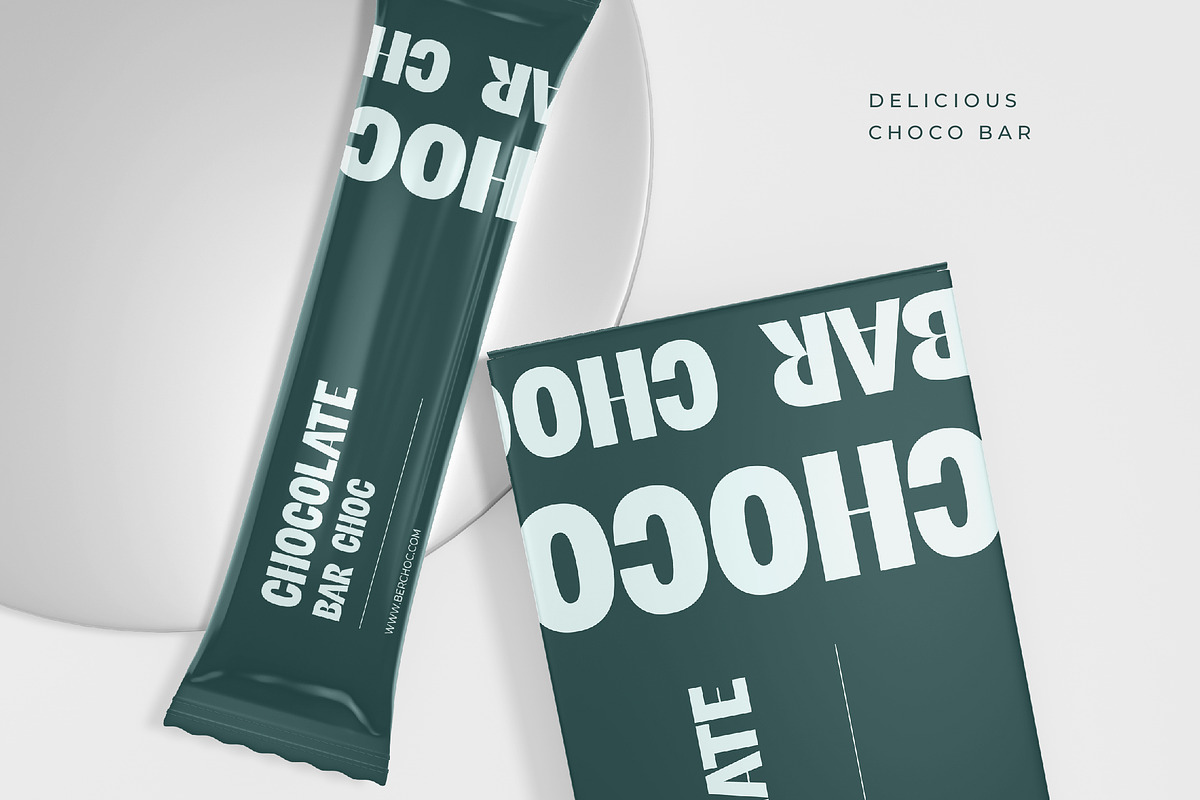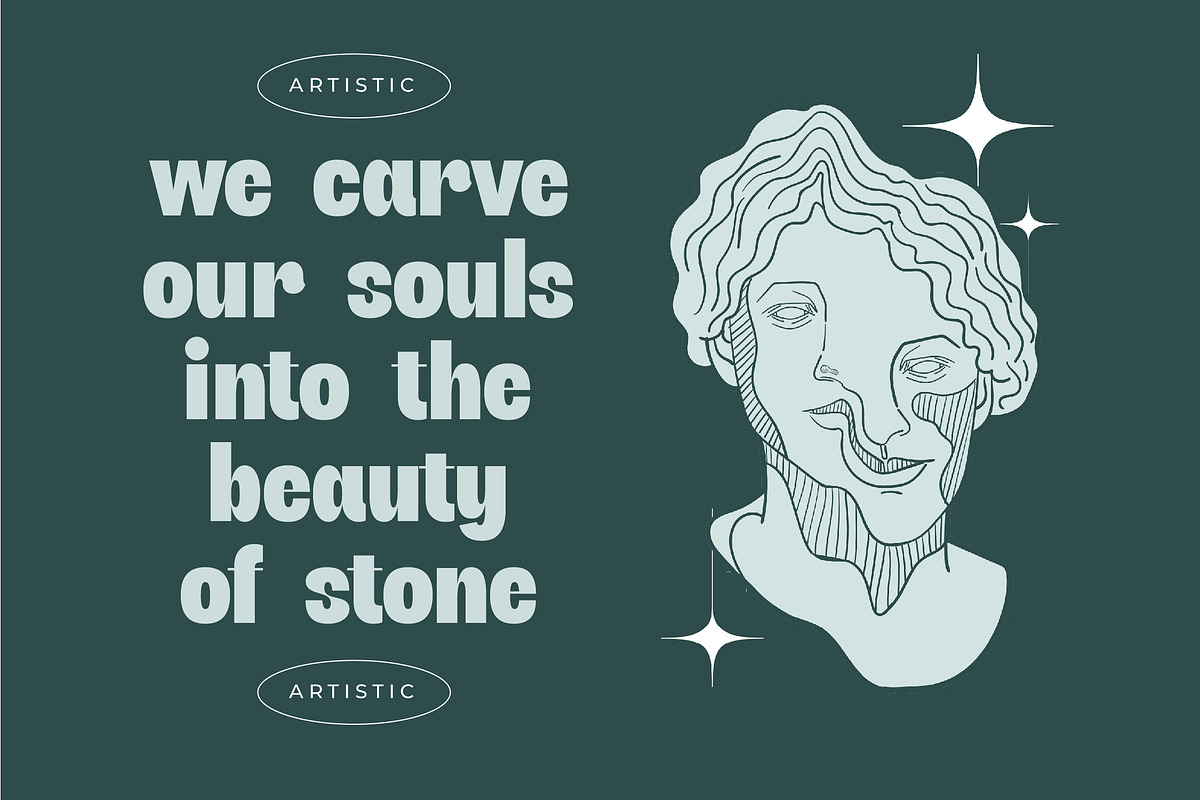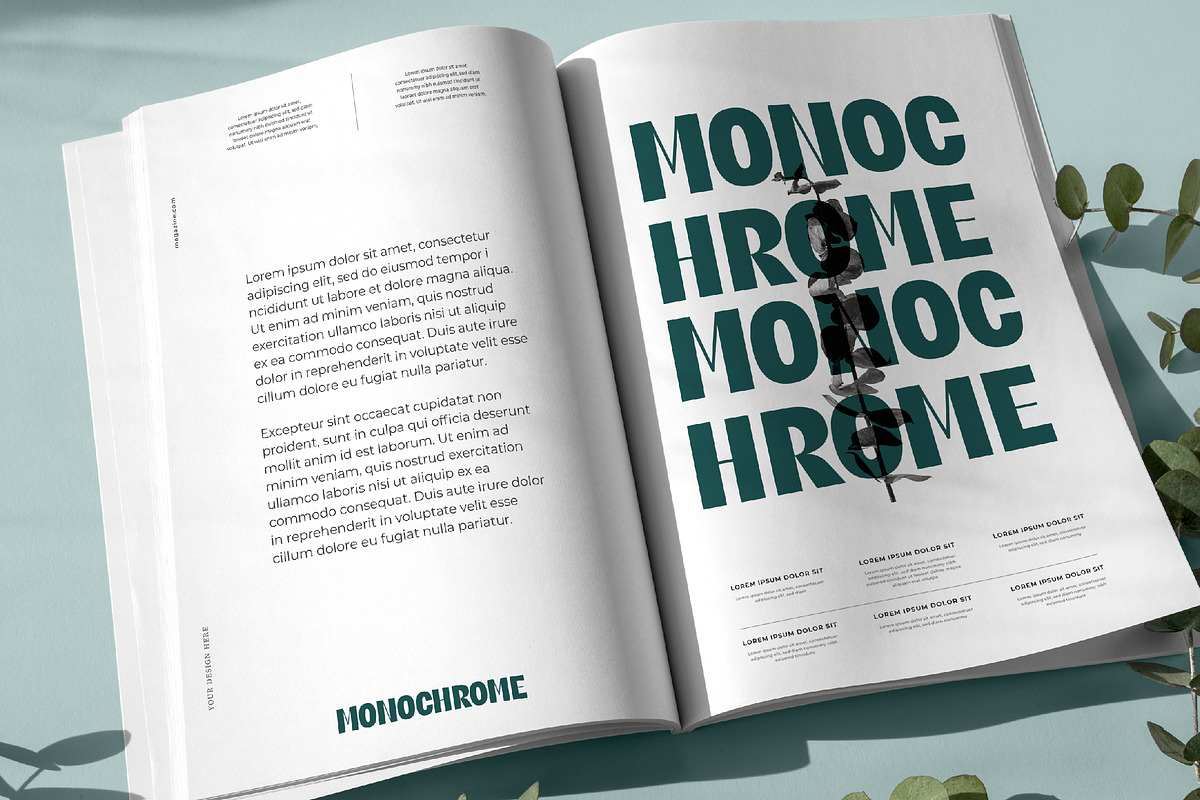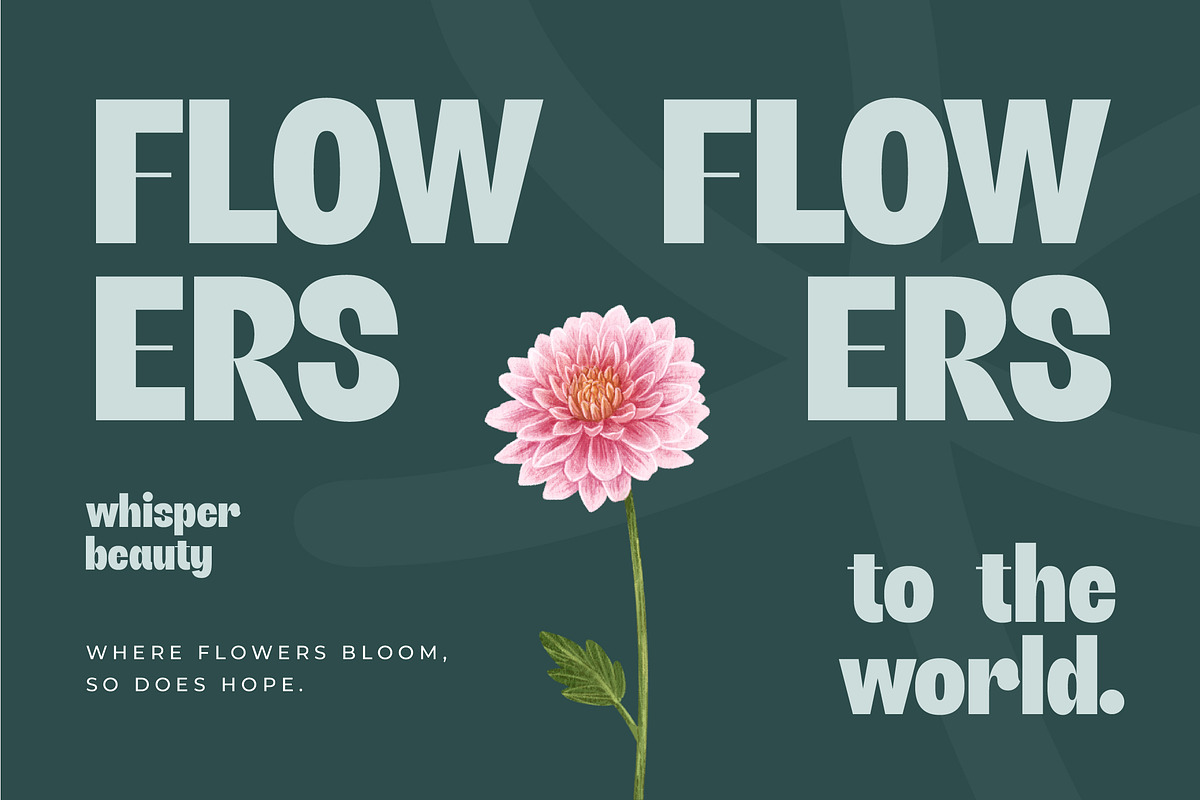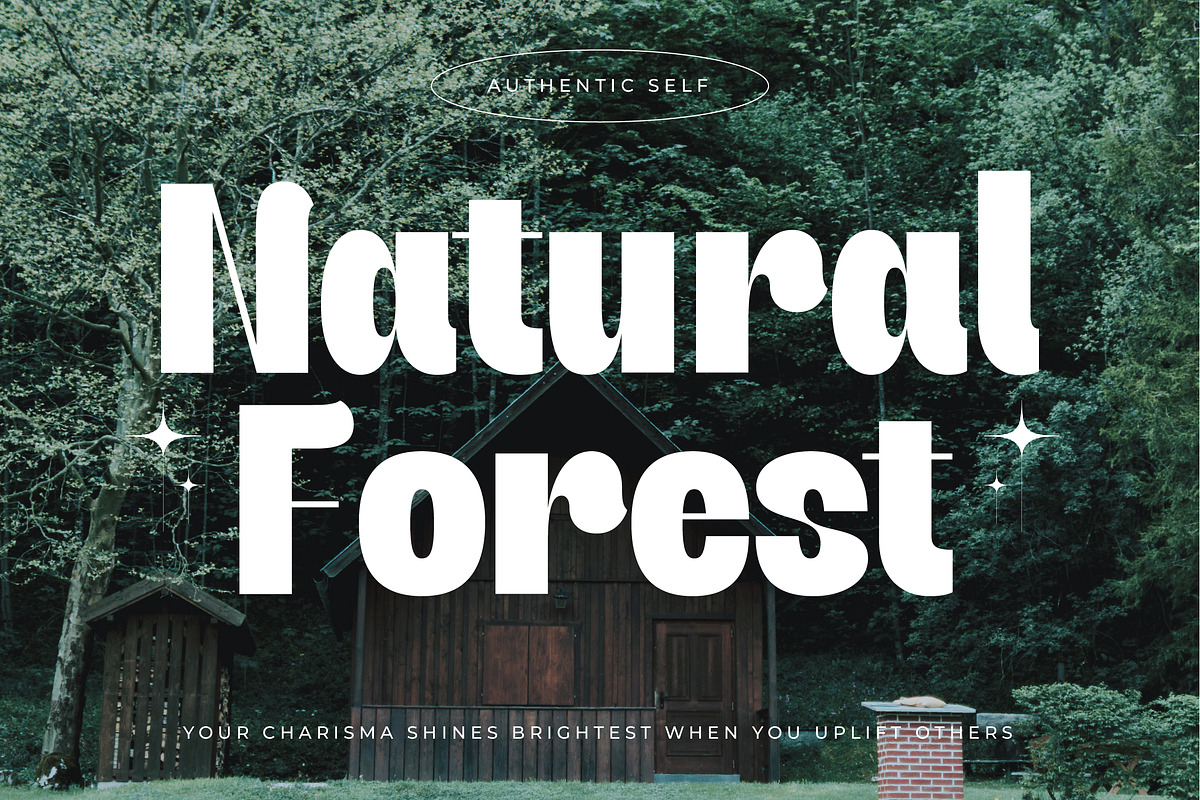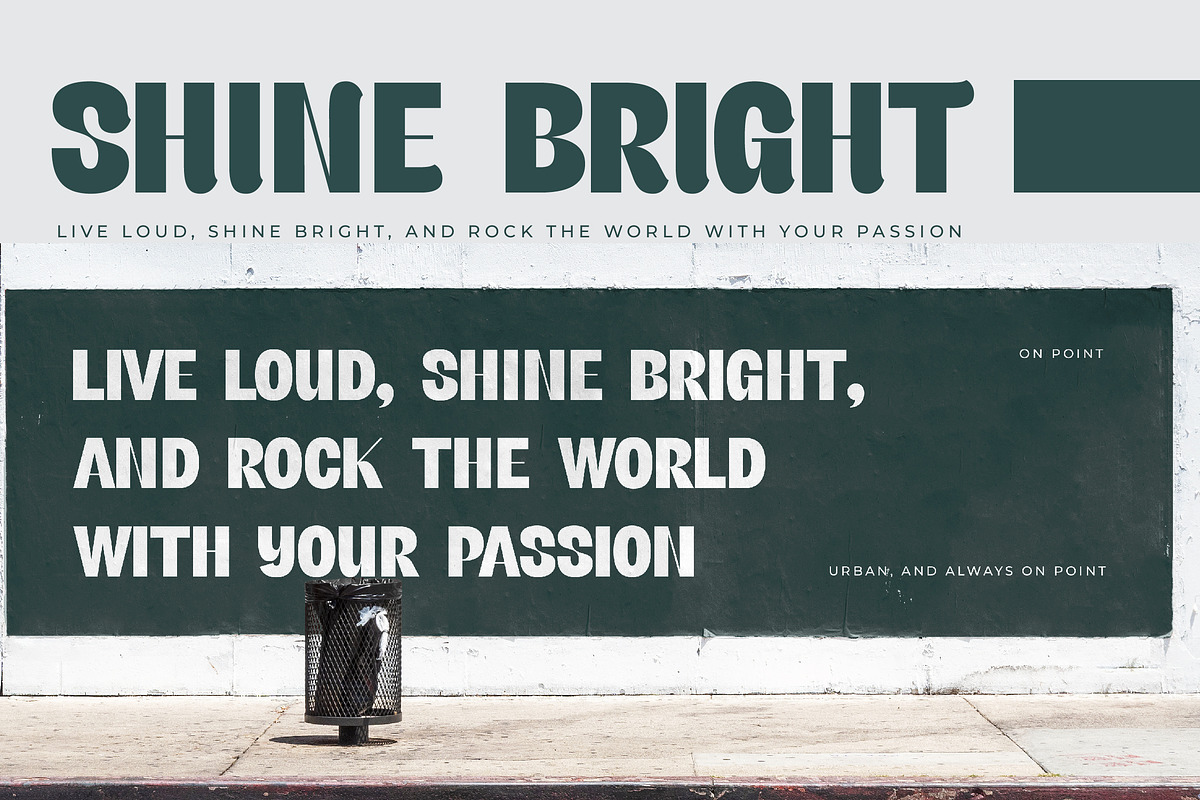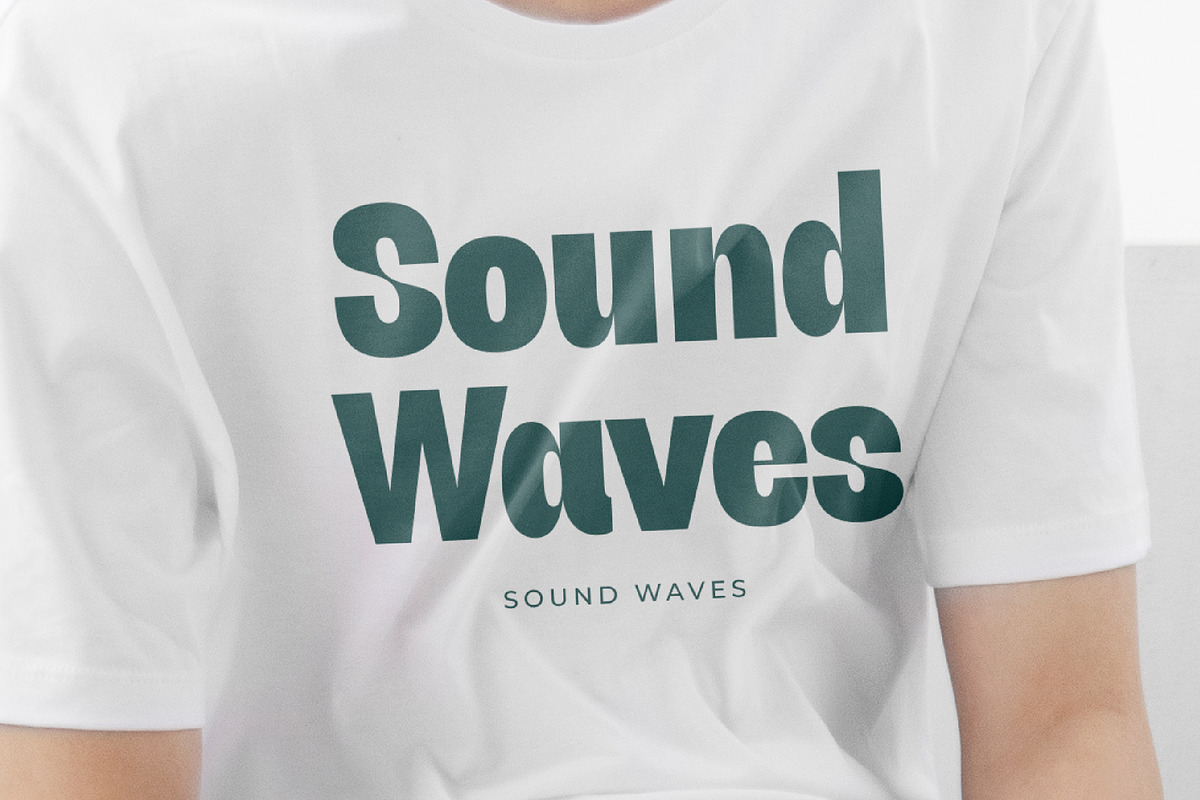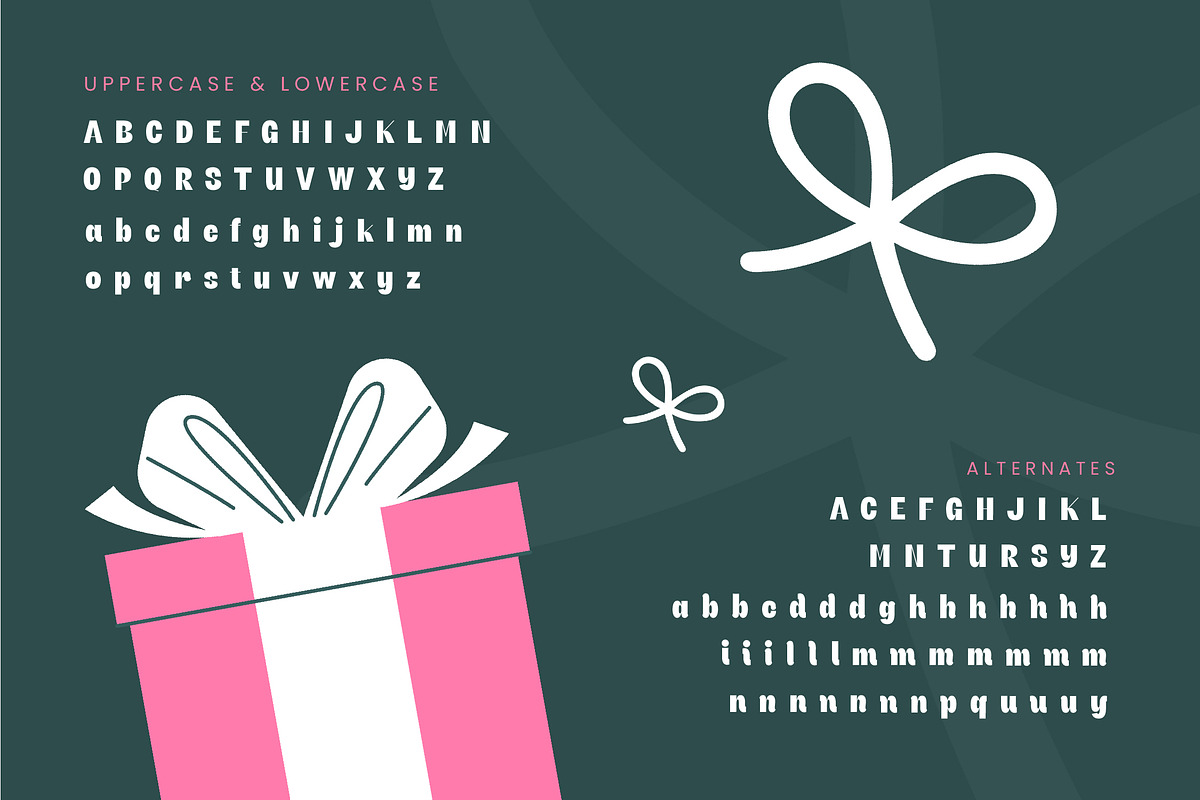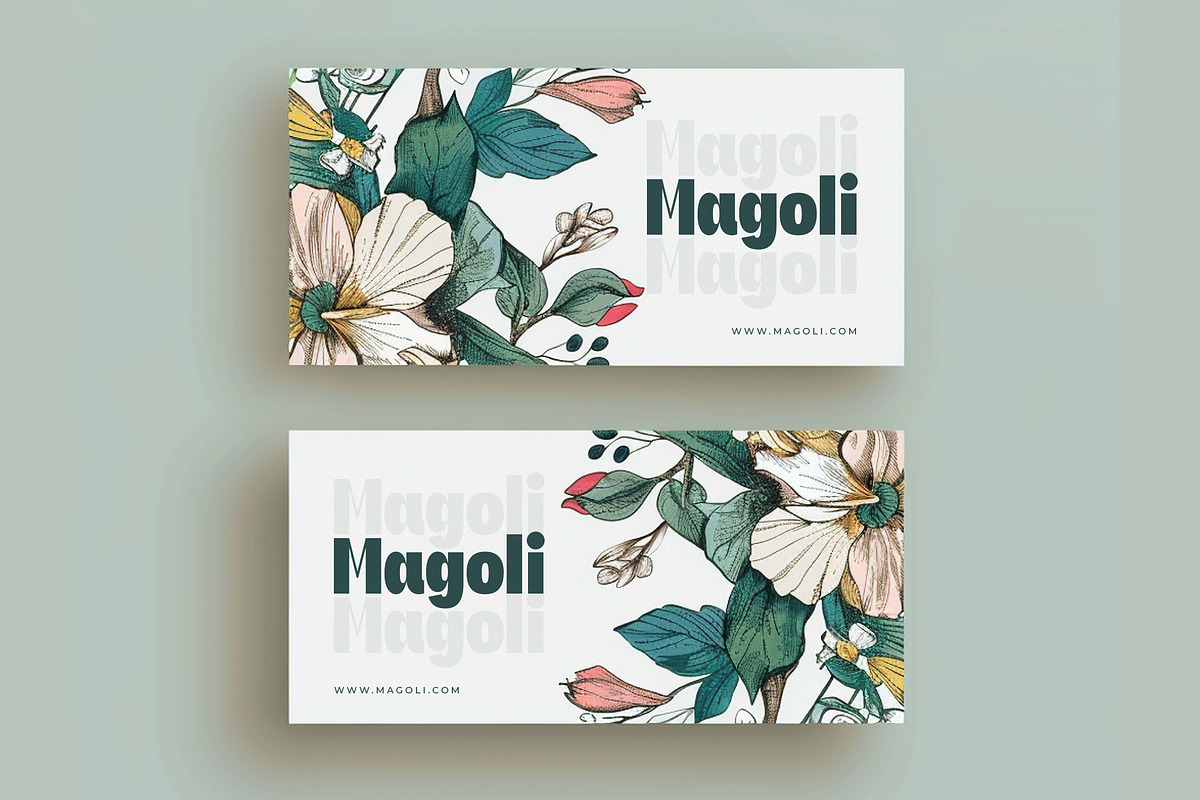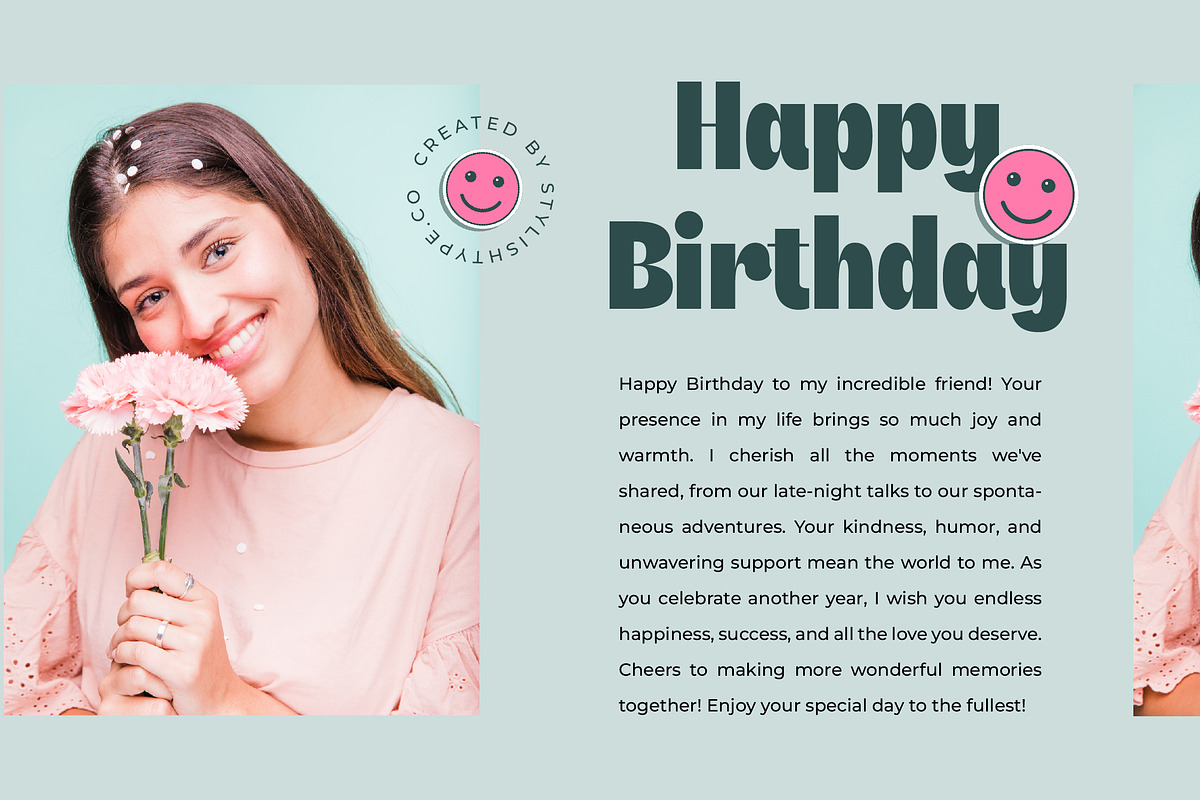
Giftson Playful Display Serif
Giftson - Display Serif Font , from Timelesstype.Co , Embrace the joy of giving with Giftson, a font designed to turn every word into a celebration. This playful typeface brings a sense of warmth and excitement to any creative project you touch.
Inspired by the whimsical shapes of hand-tied bows and the anticipation of unwrapping a present, this font captures a handcrafted charm that feels both personal and professional.
With its unique proportions and friendly weight, it embodies a modern serif display style that radiates a cheerful personality while maintaining a high-impact visual presence.
Perfect for the current modern serif trend, this typeface meets the market demand for organic typography that feels authentic and breaks away from rigid geometric norms.
It is an exceptional choice for logo design, holiday packaging, and creative branding projects where a touch of whimsy and a bold statement are needed to stand out.
The font is packed with creative possibilities, offering an extensive range of alternates, multilingual support, and unique ligatures to customize your layouts perfectly.